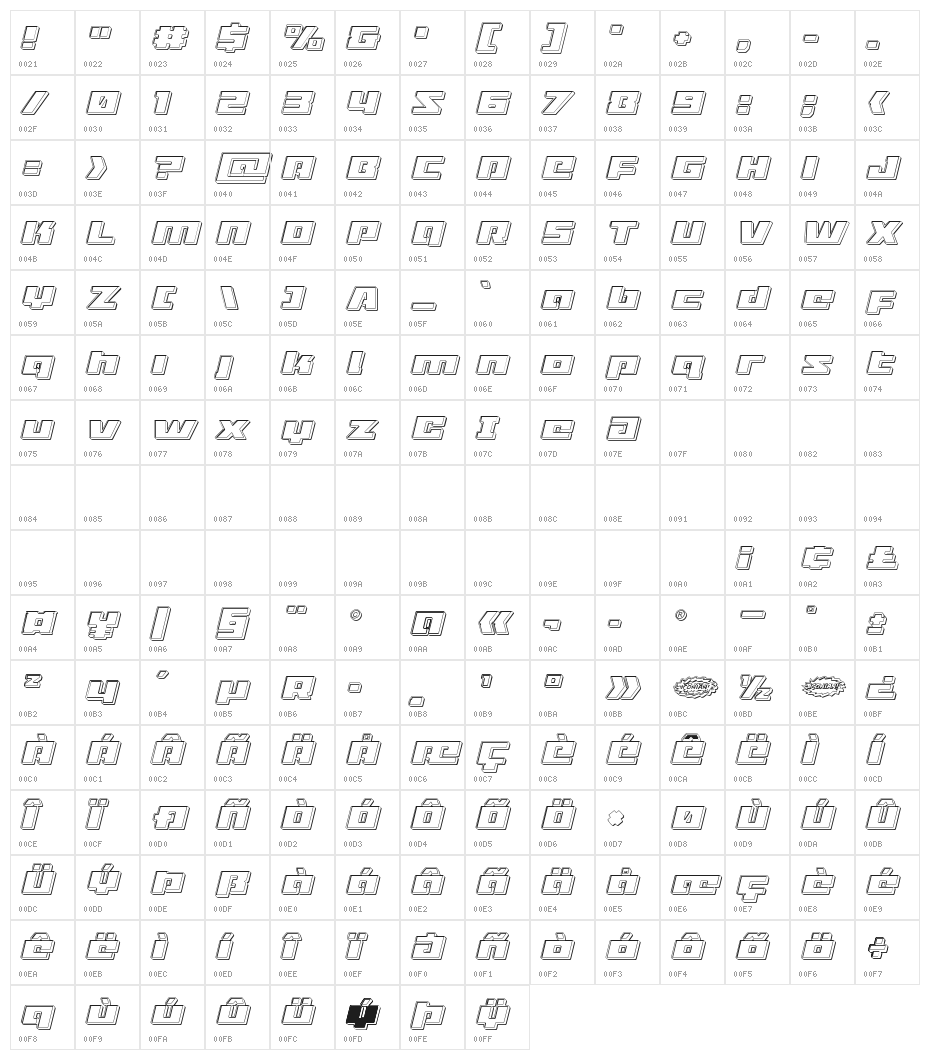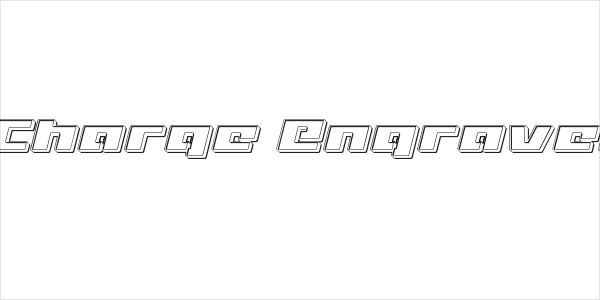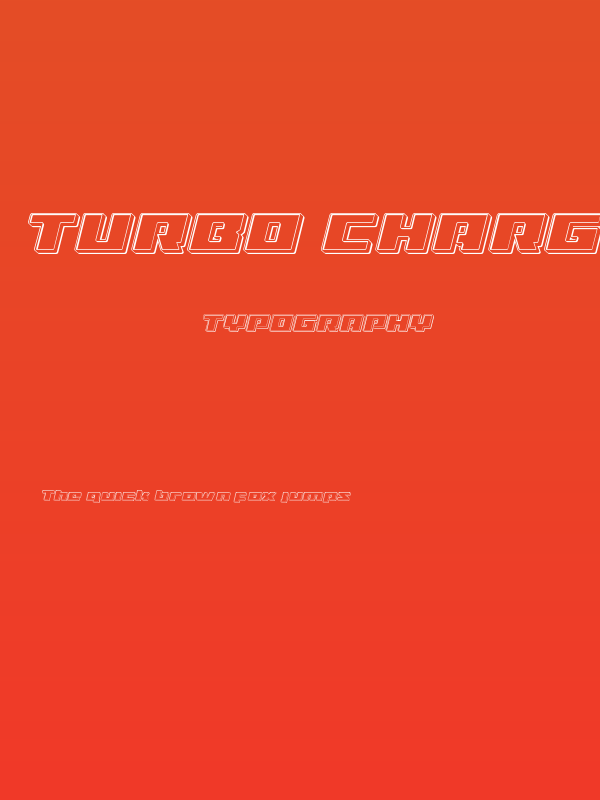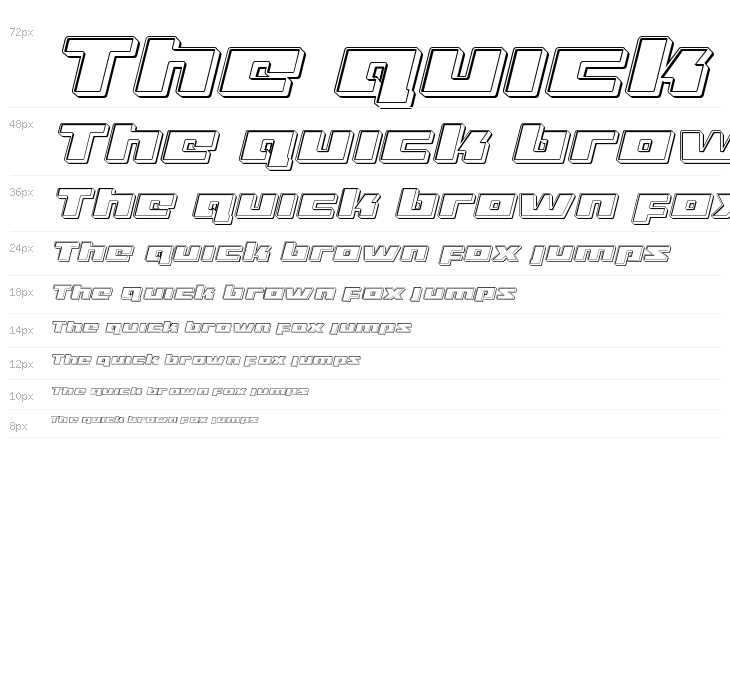
Turbo Charge Engraved Italic Font
Turbo Charge Engraved Italic Description
This font features a bold, futuristic design with a distinct engraved effect that gives it a three-dimensional appearance. The characters are italicized, adding a dynamic and forward-leaning feel. The geometric shapes and sharp angles contribute to its modern and technical aesthetic. Each letter is outlined, creating a hollow look that enhances the engraved style. The font maintains consistent line thickness, ensuring readability while emphasizing its unique style. The numerals and special characters follow the same design principles, making them cohesive with the alphabet. This font is ideal for projects that require a strong, impactful presence.
| Proposed Projects | Ideal for technology branding, video game titles, automotive designs, and sci-fi themed projects. |